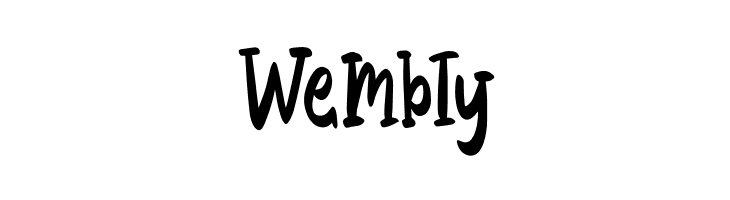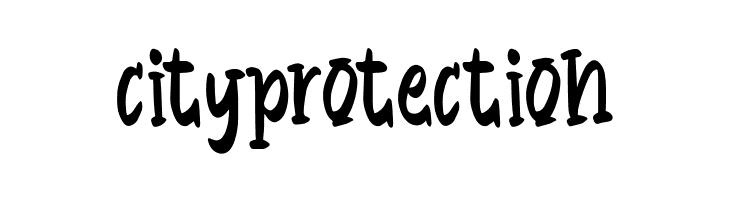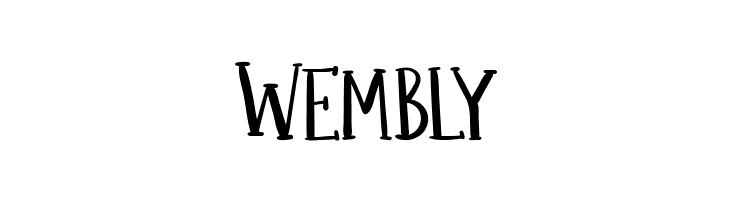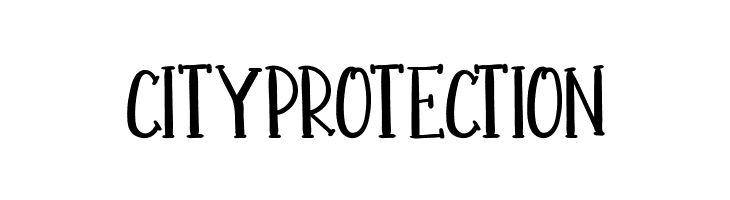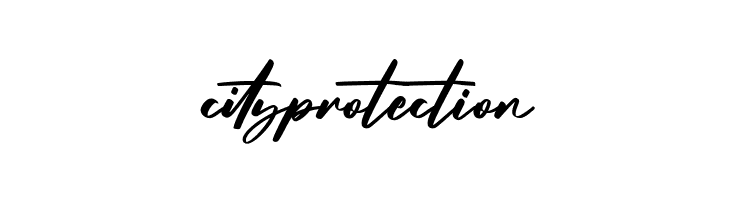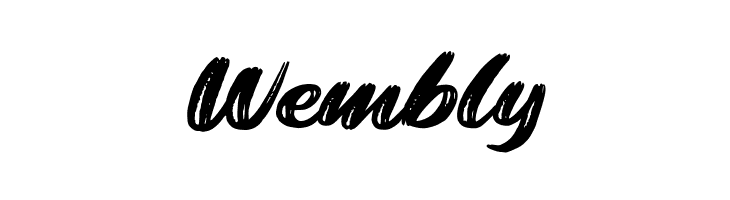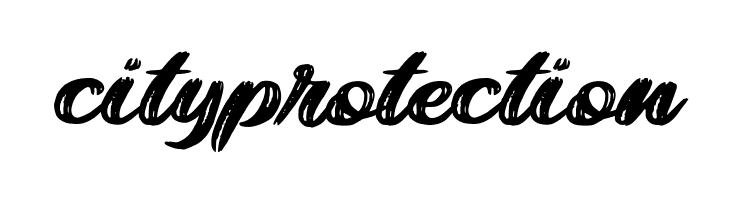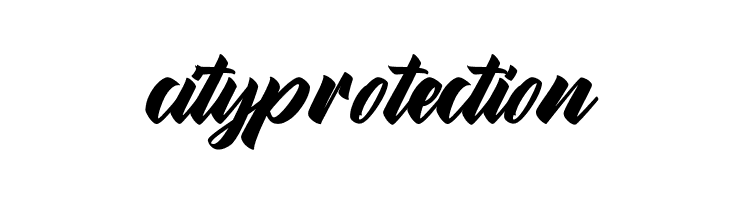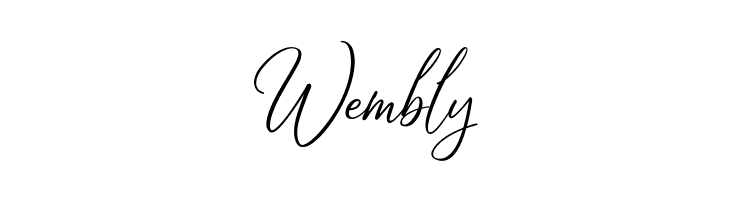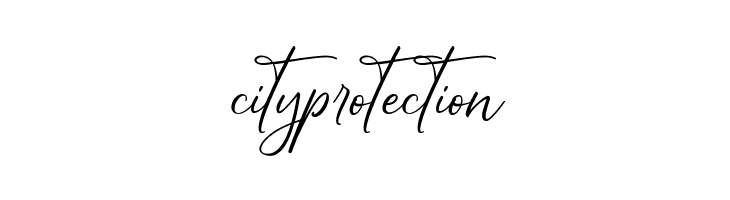
• Breakloft Free
An elegant, flowing script font with delicate, continuous strokes.
• BreakStones-FreePersonalUse
A bold, expressive script font with flowing, cursive design.
• BreakStones-FreePersonalUse
A bold, flowing script font with smooth, rounded edges and a dynamic appearance.
• Breathtaking Maldives Free Reg
A clean, modern font with balanced strokes and elegant design.
• Brennan
A bold, slab serif font with a vintage yet modern appeal.
• Brian Powers Doodle Normal
A collection of whimsical and playful doodles, each with a unique, hand-drawn illustration.
• Bric-a-Braque NF
A bold, geometric font with high contrast and sharp angles, perfect for dramatic designs.
• Bricius Free Trial
A classic, calligraphic font with elegant, angular strokes.
• Bricks n Things
• Brickston Free Regular
A dynamic script font with fluid, sweeping strokes and a modern calligraphic style.
• BrickToBrick
The image contains construction-themed illustrations, not a font.
• bridamount
A classic serif font with elegant strokes and balanced proportions.
• Brigend Signature
• Brighamdemo
A classic serif font with elegant strokes and moderate contrast, perfect for sophisticated designs.
• Bright Daily FREE
A graceful, cursive script font with elegant, flowing lines and high contrast.
• Bright FREE
A bold, brush-style script font with dynamic and expressive strokes.
• Bright Lights Bold Regular
A dot-based font with a modern, digital display style.
• Bright Lights Regular
A modern dot matrix font with a digital, technological aesthetic.
• BRIGHTON FREE
A playful, hand-drawn font with a whimsical and casual style.
• Brigita FREE
A playful, whimsical font with bold, rounded strokes and quirky letterforms.
• Brillante St
A bold, shadowed font with a modern, geometric style.
• Brilyon Script FREE